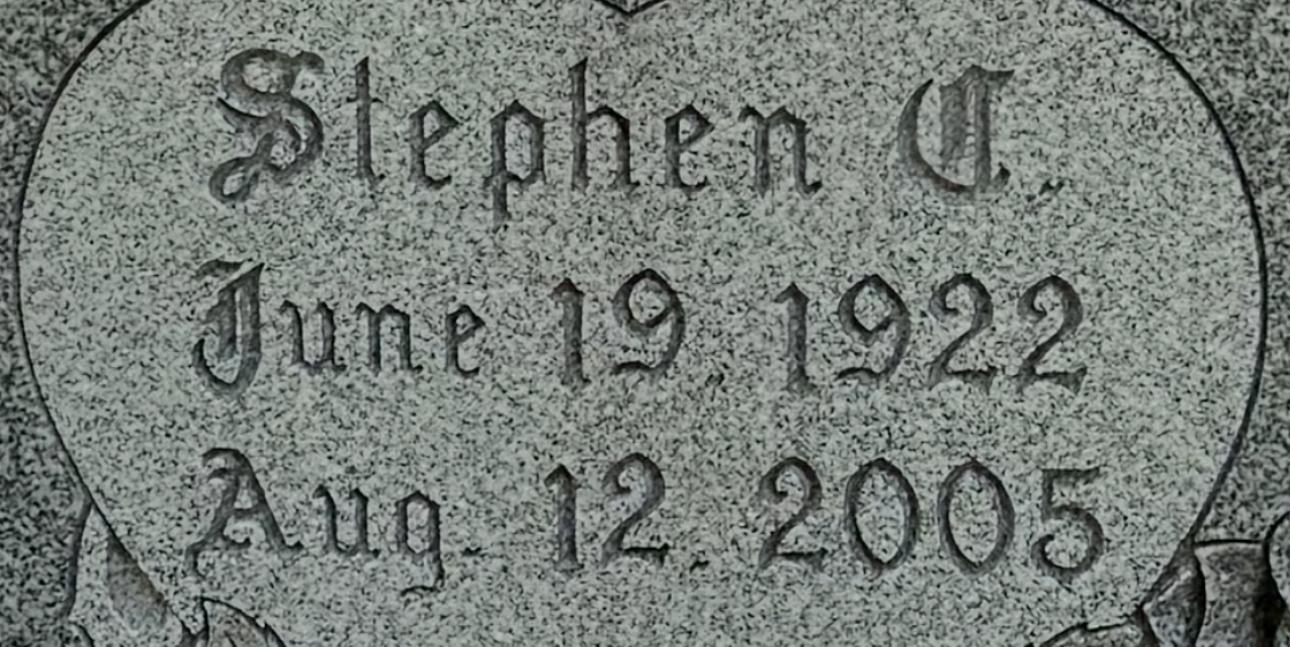
Old English Font Help
Does anyone know specifically what this Old English Font is? Thanks!
Hi Paul, this is the old metal Spacerite Old English alphabet, which would have either been hand-cut, or this is possibly a digital version. The 1’s are actually upside down, because the metal letters had a larger empty space below the number than above it, which is why they are lower than the other numbers.